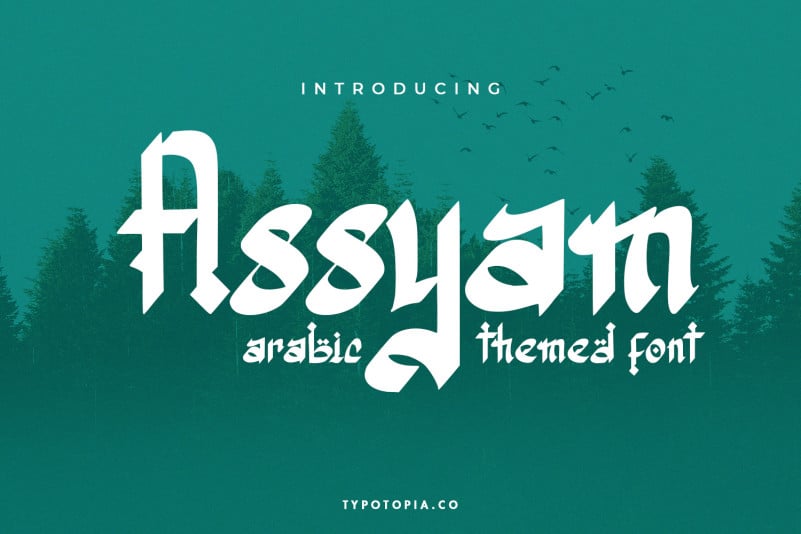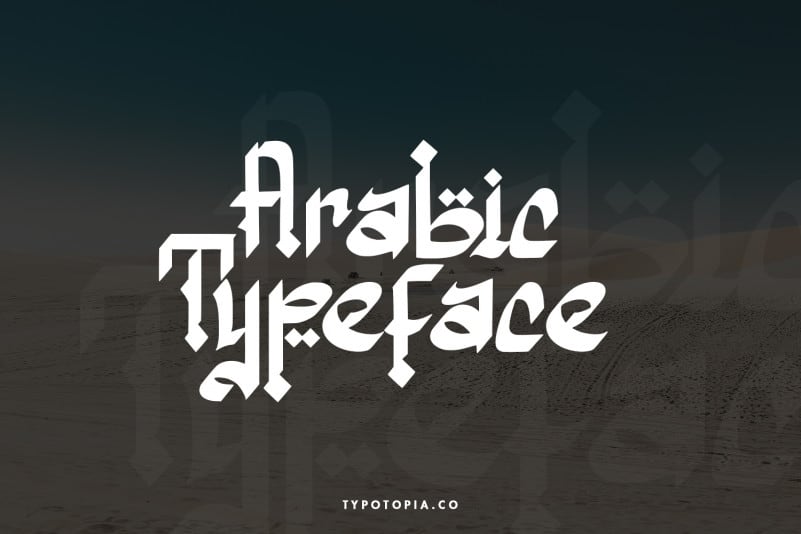
Assyam Display Font
Assyam Display Font the Arabic Themed Typeface come with modern Arabic look design styles. This lovely font would be perfect to combine in your design. Suitable for digital lettering, logo, t-shirt, print, business cards, branding materials, quotes, nature photography, etc, made with hand painted and carefully crafted.